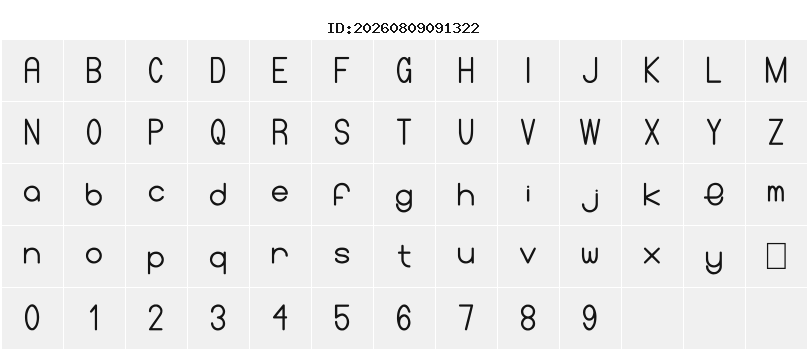
Perfect fonts CarbonChaos Preview
• Font Name: Perfect fonts CarbonChaos
• Full Font Name: Perfect fonts CarbonChaos
About Perfect fonts CarbonChaos.ttf
Perfect fonts CarbonChaos.ttf is a modern, elegant sans-serif font designed for ultimate readability and visual harmony. Perfect for branding, headlines, web design, and print materials.